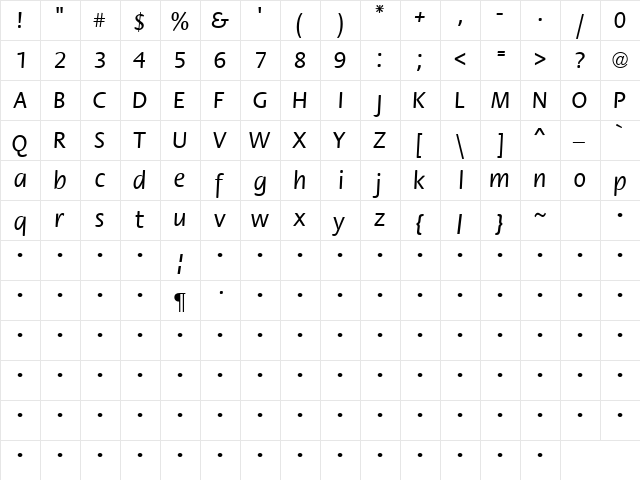
QTFloraline Regular Font Preview
QTFloraline Regular
Design Context for QTFloraline Typeface
QTFloraline takes a measured approach to typography — its balanced proportions and neutral character make it a reliable workhorse for both digital and print work.